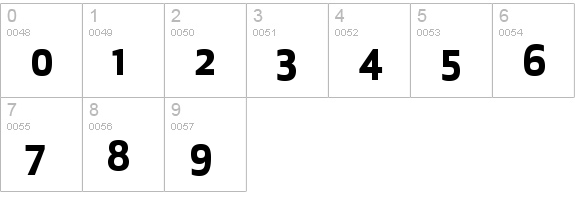
ApexNew-Bold is a strong, high-contrast variant in the ApexNew typeface family \xE2\x80\x94 well suited to headlines, attention-grabbing titles, and strong calls-to-action.
Introducing ApexNew-Bold, a sleek and modern font that exudes confidence and sophistication. With its bold and eye-catching design, ApexNew-Bold is perfect for adding a touch of elegance to any project. This versatile font is ideal for headlines, posters, branding, and more. The best part? ApexNew-Bold is completely free to download at FontsMarket.com. Take your designs to the next level with this stylish and impactful font that will make a lasting impression. Stand out from the crowd and elevate your work with ApexNew-Bold. Download it today and let your creativity shine!